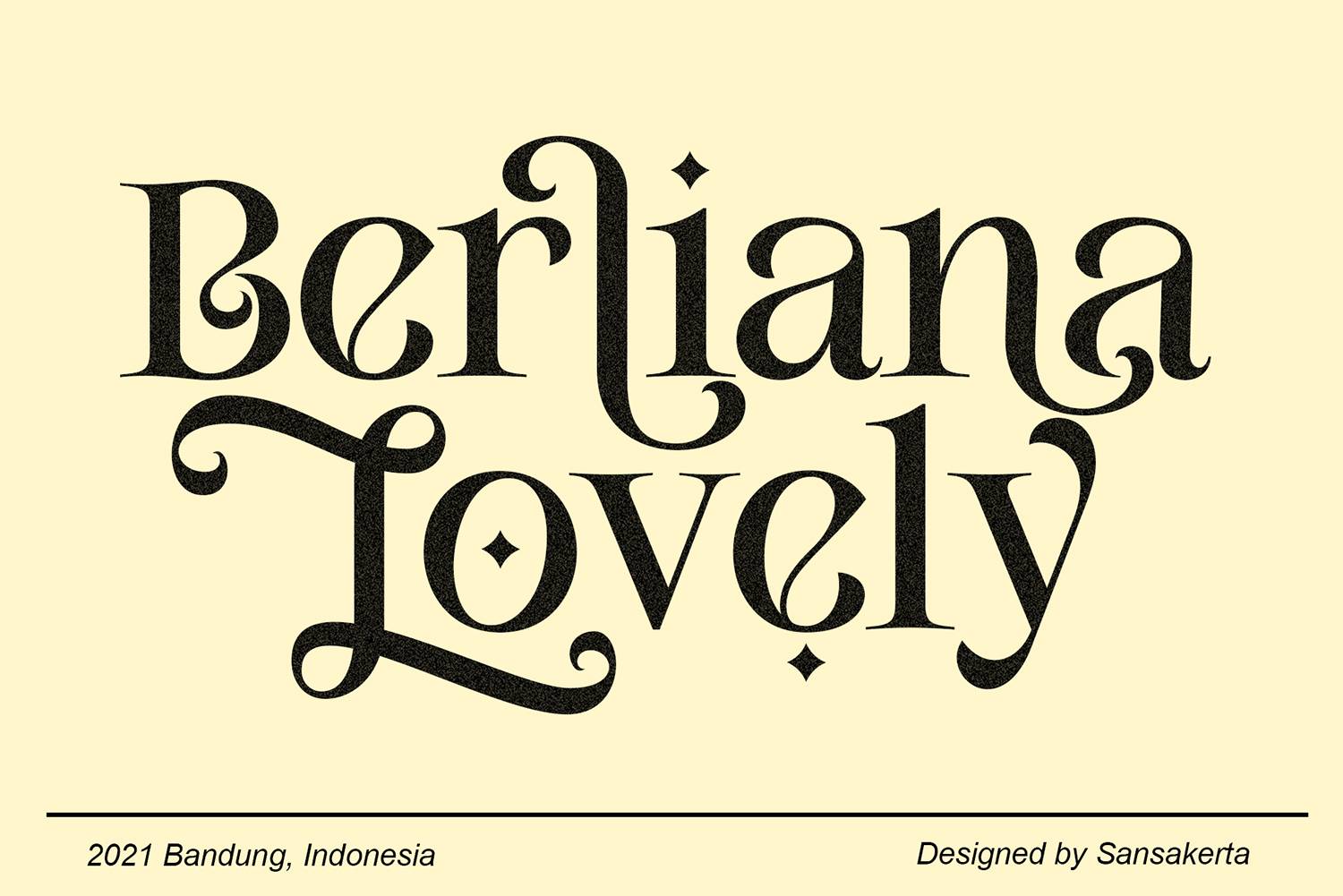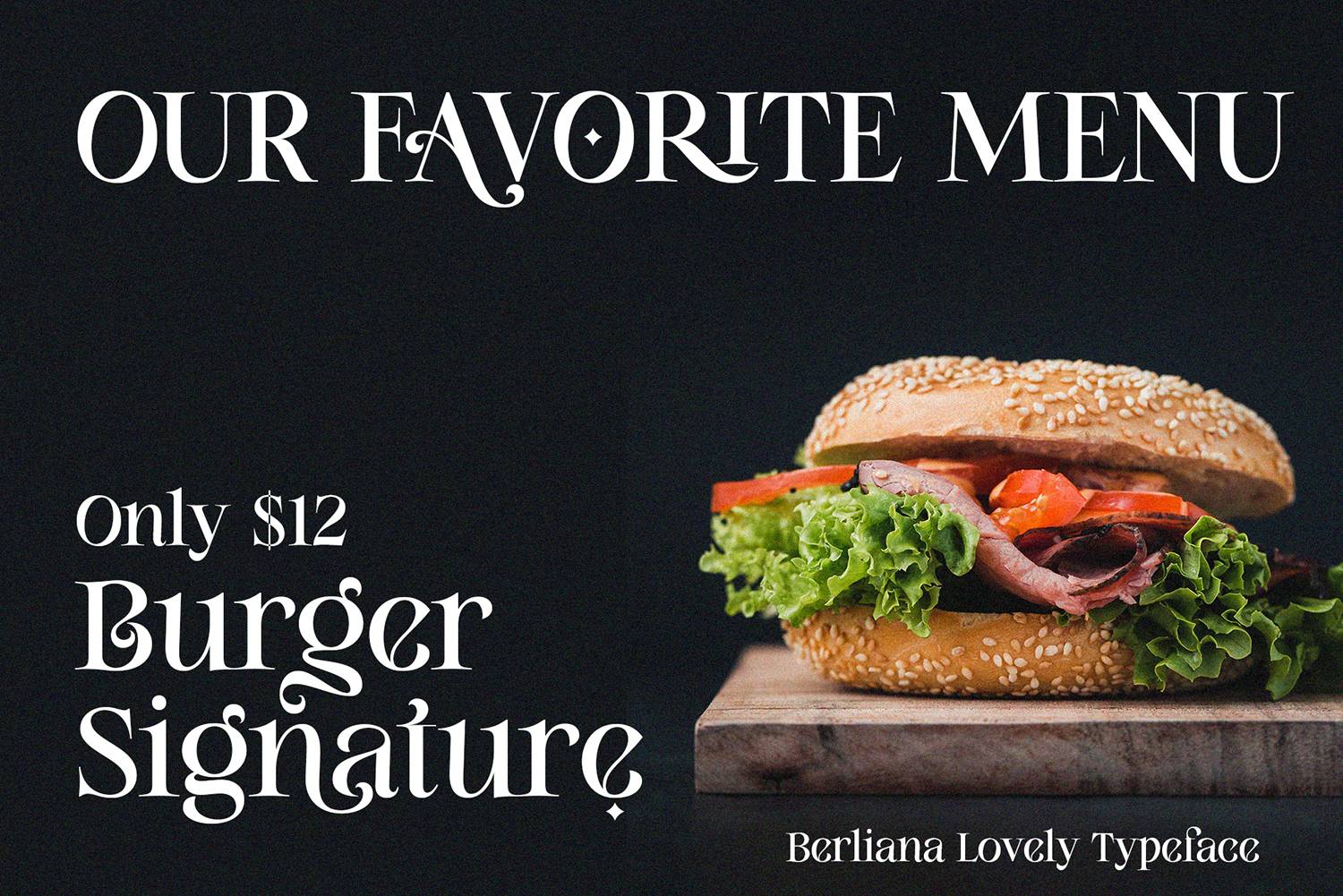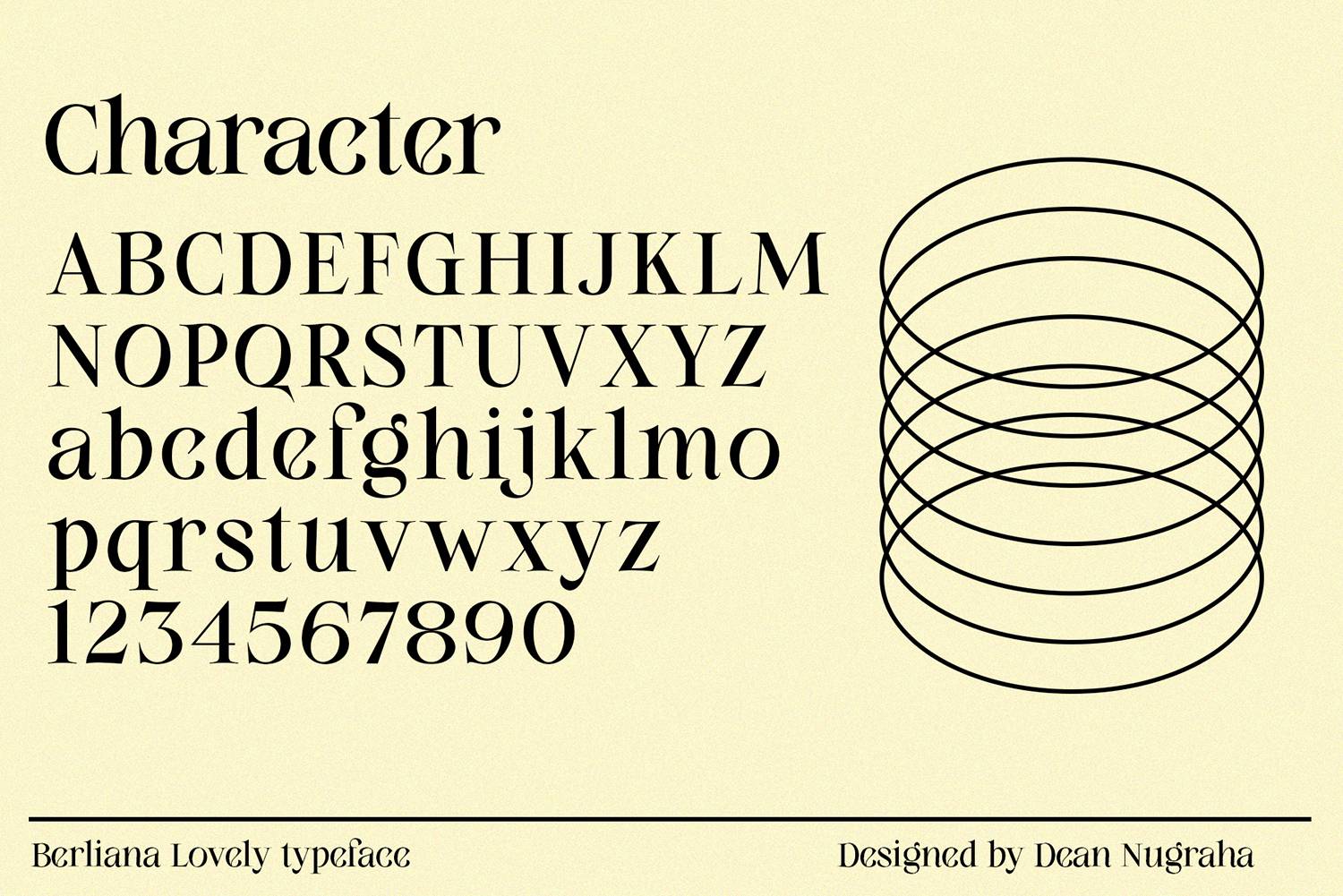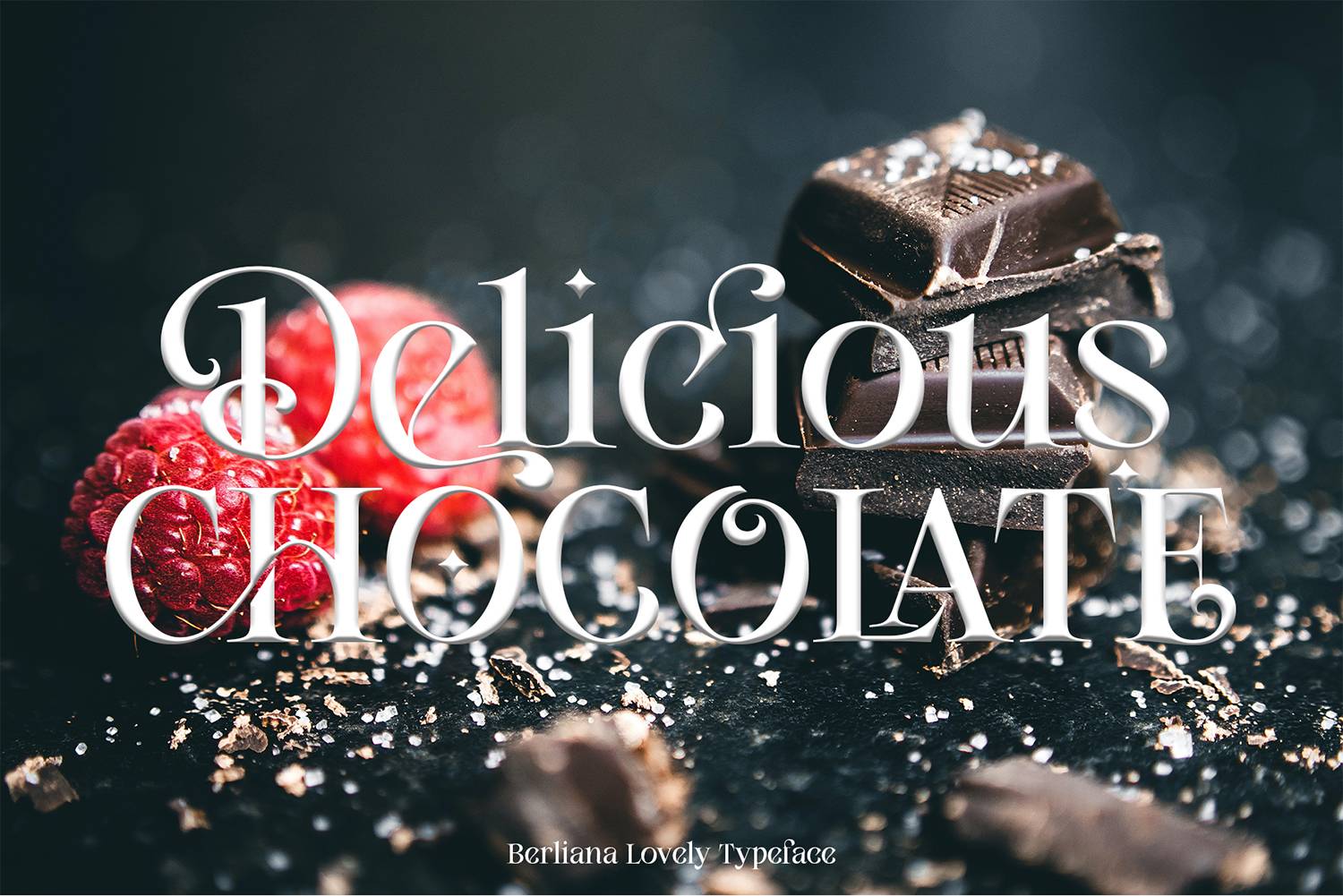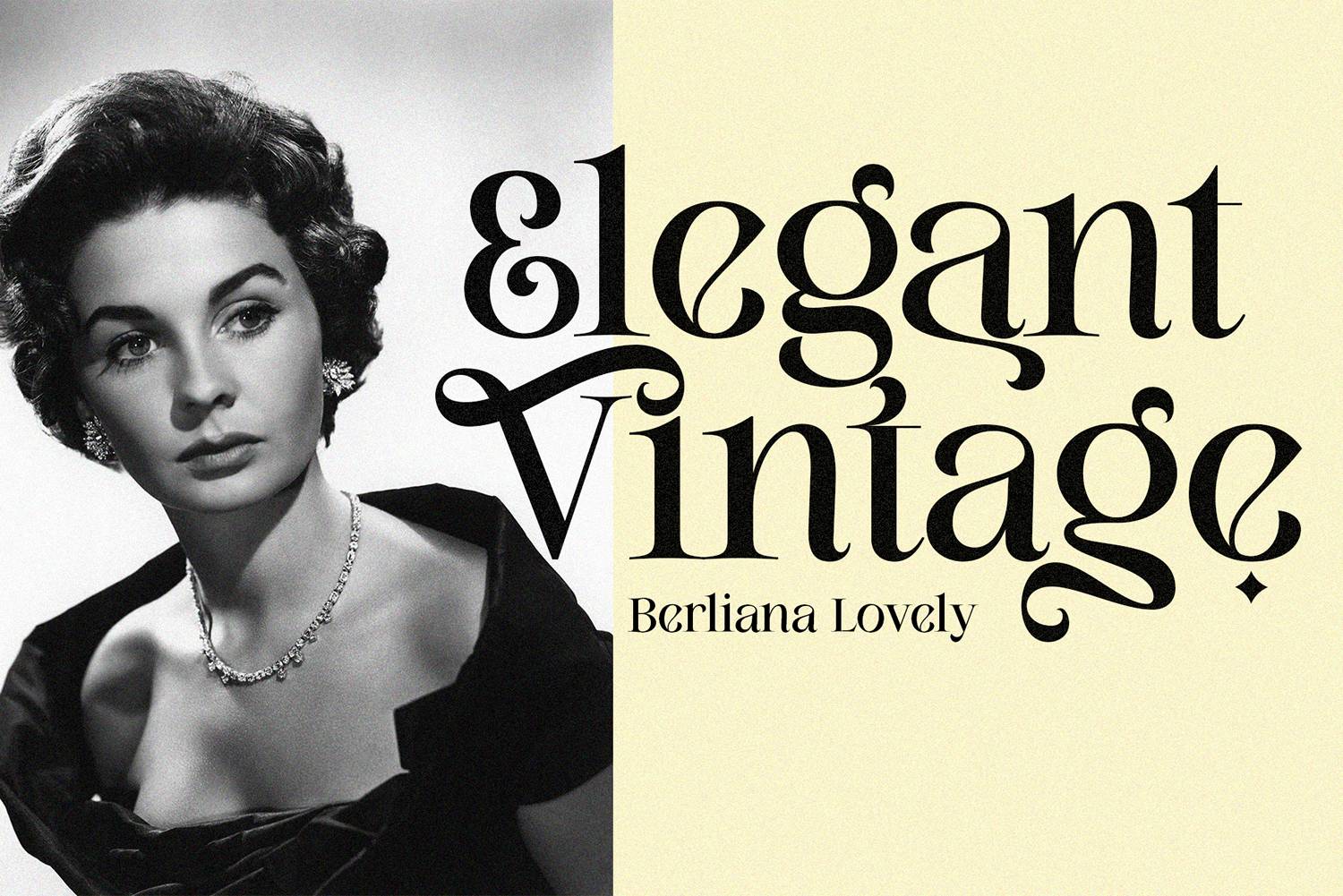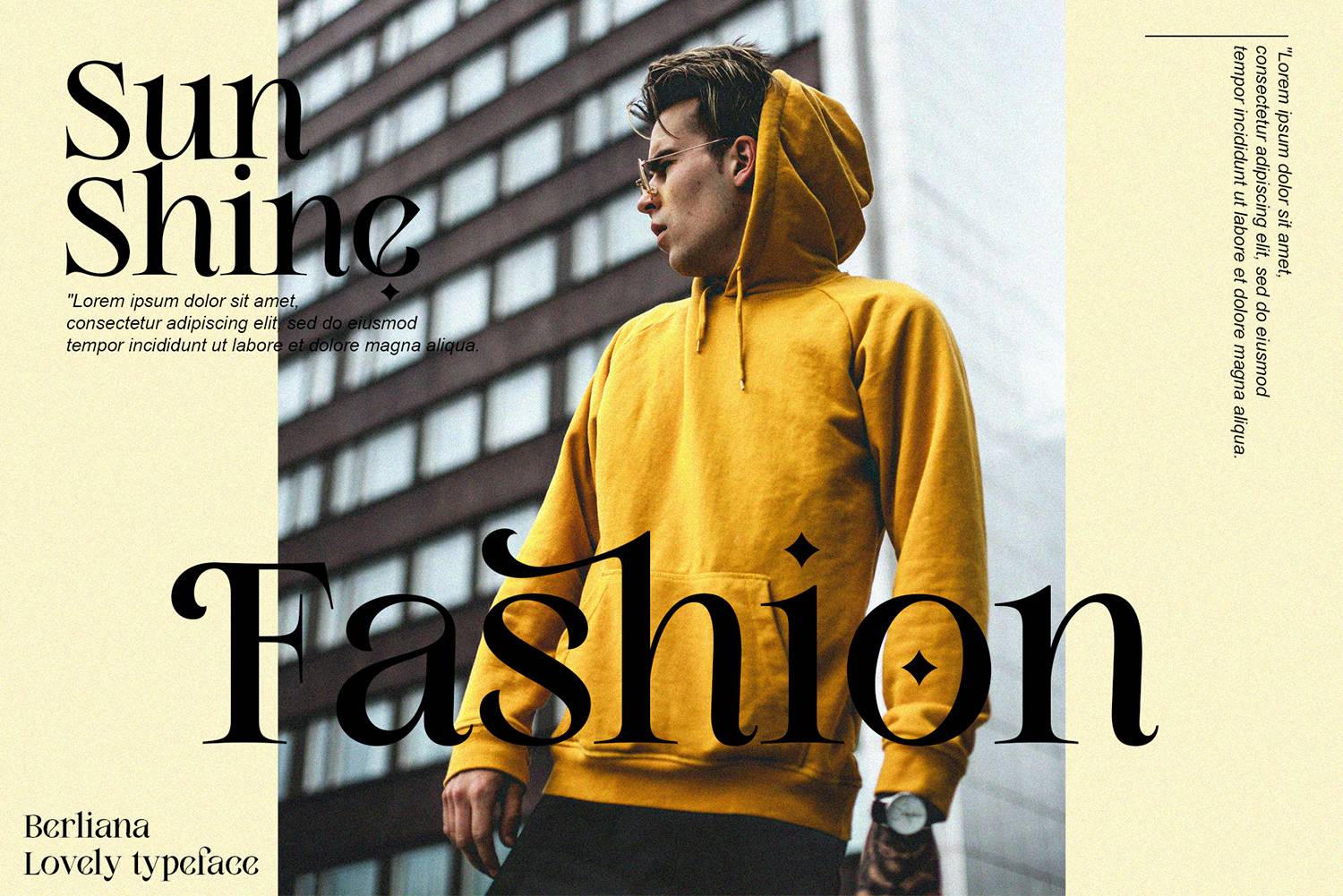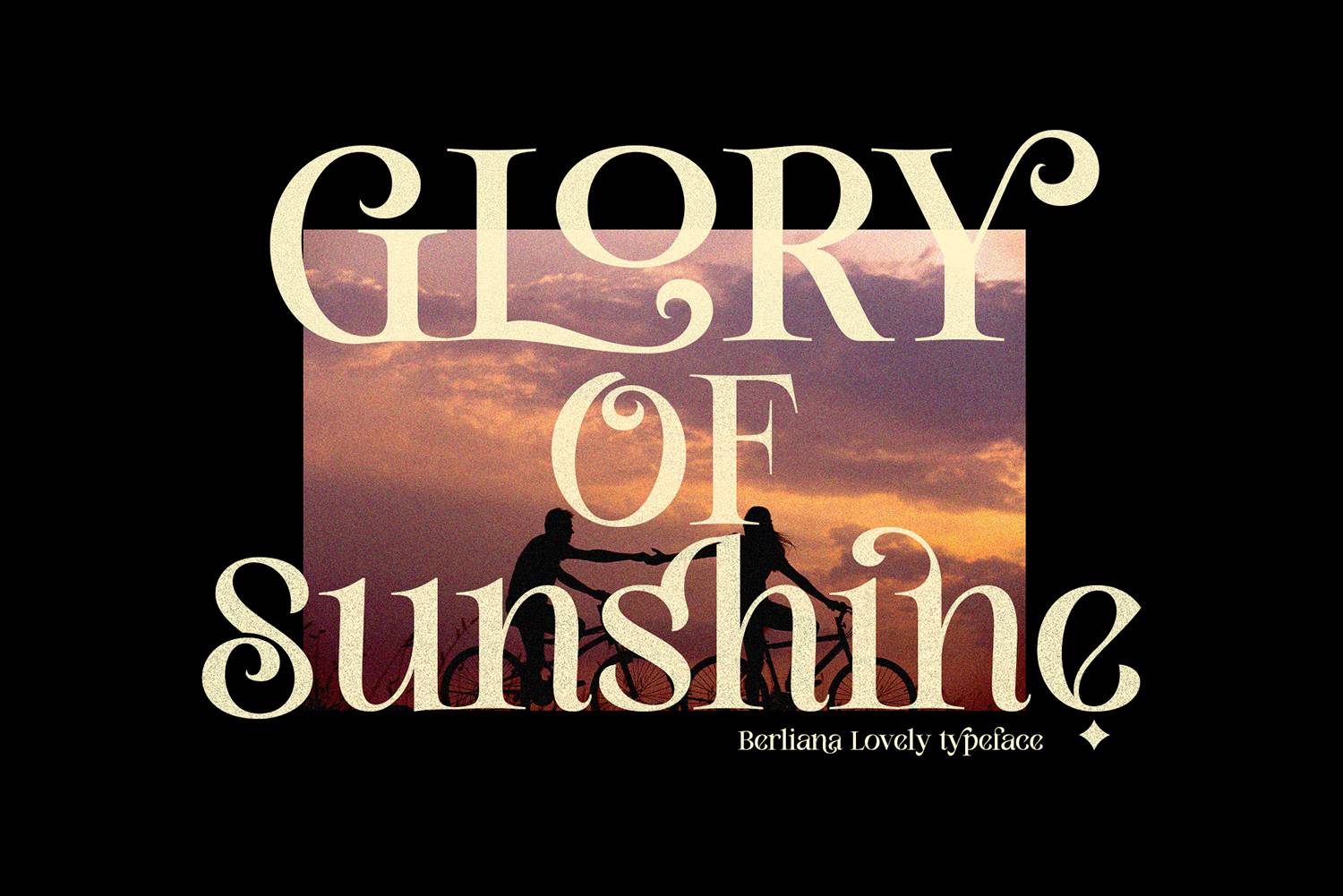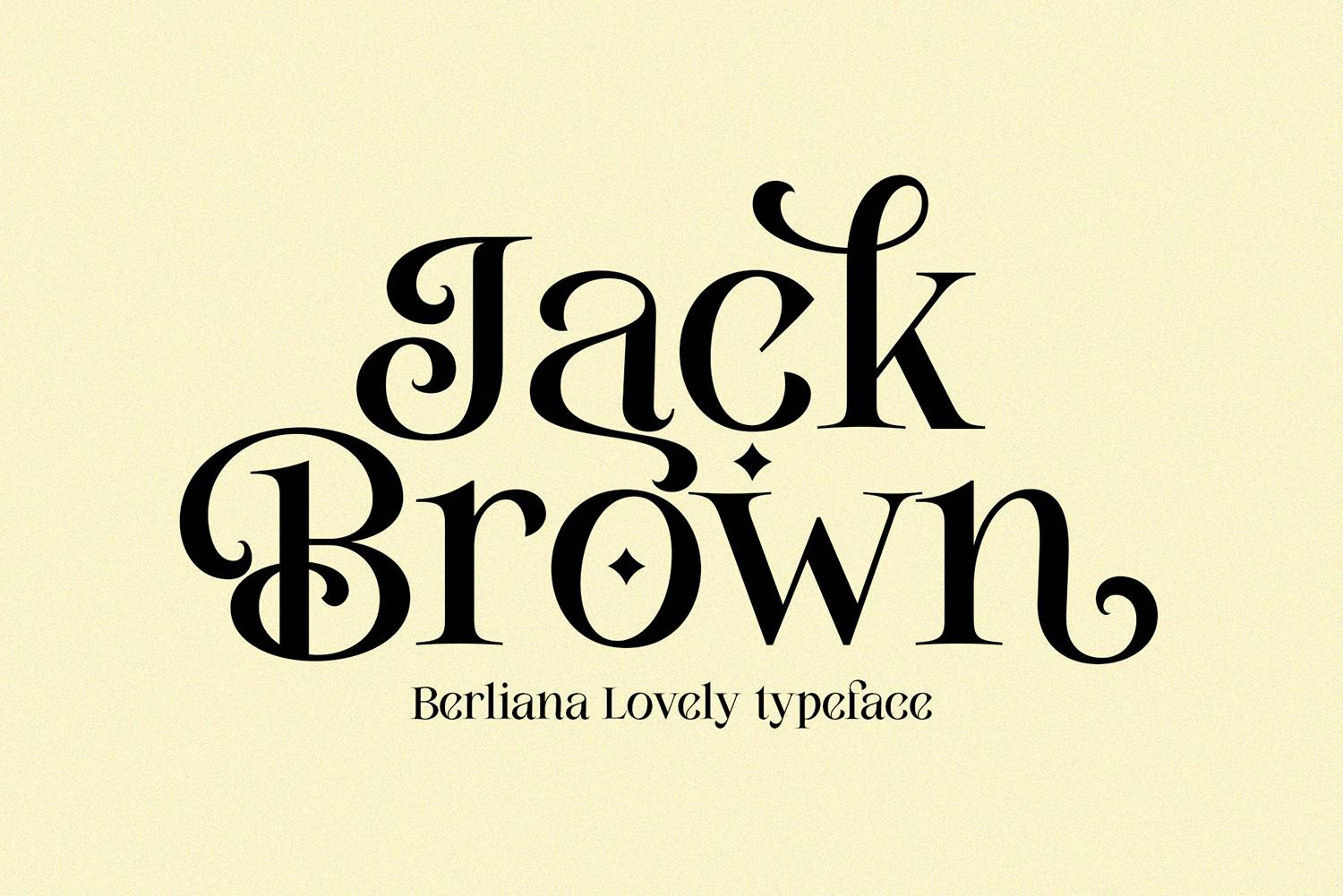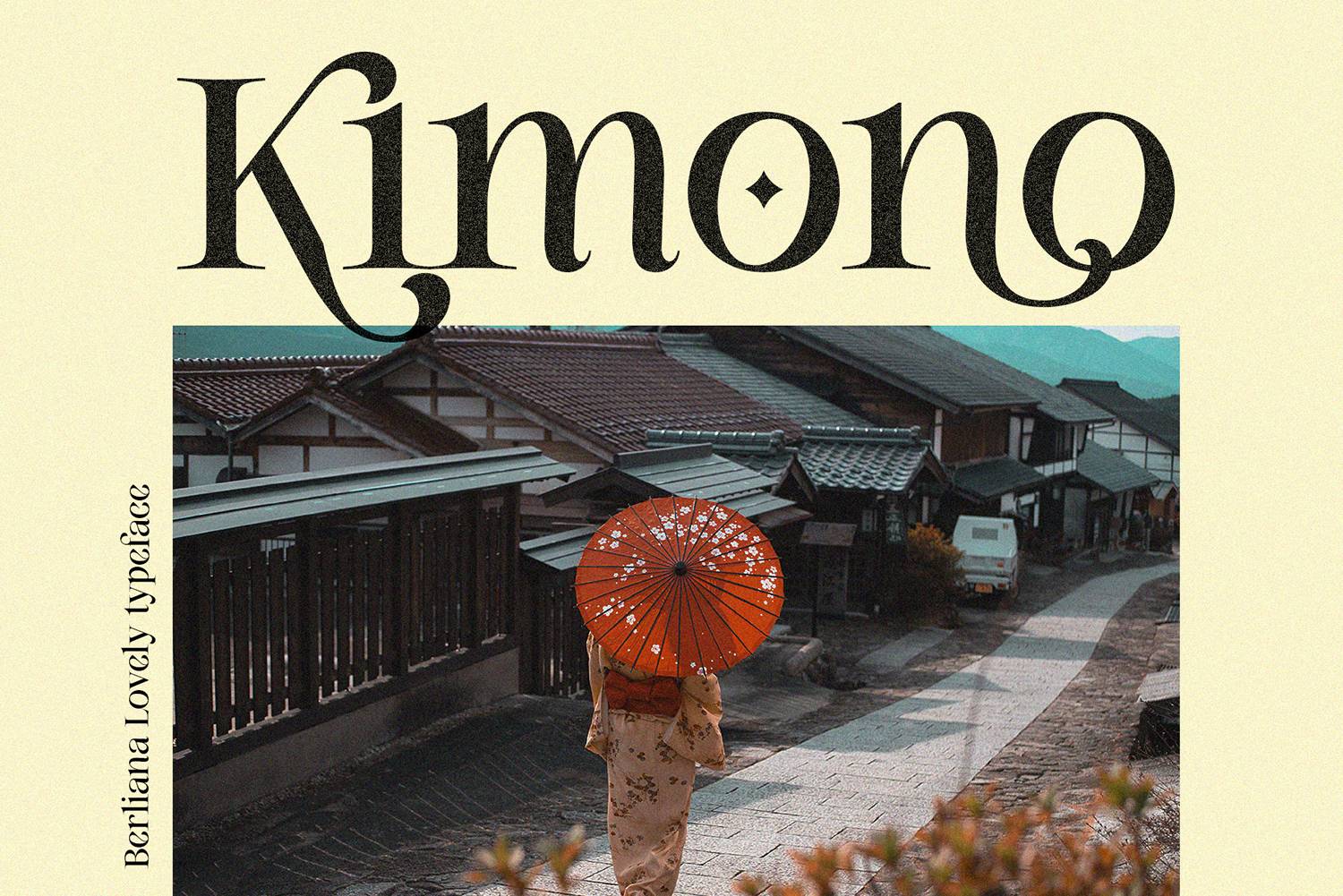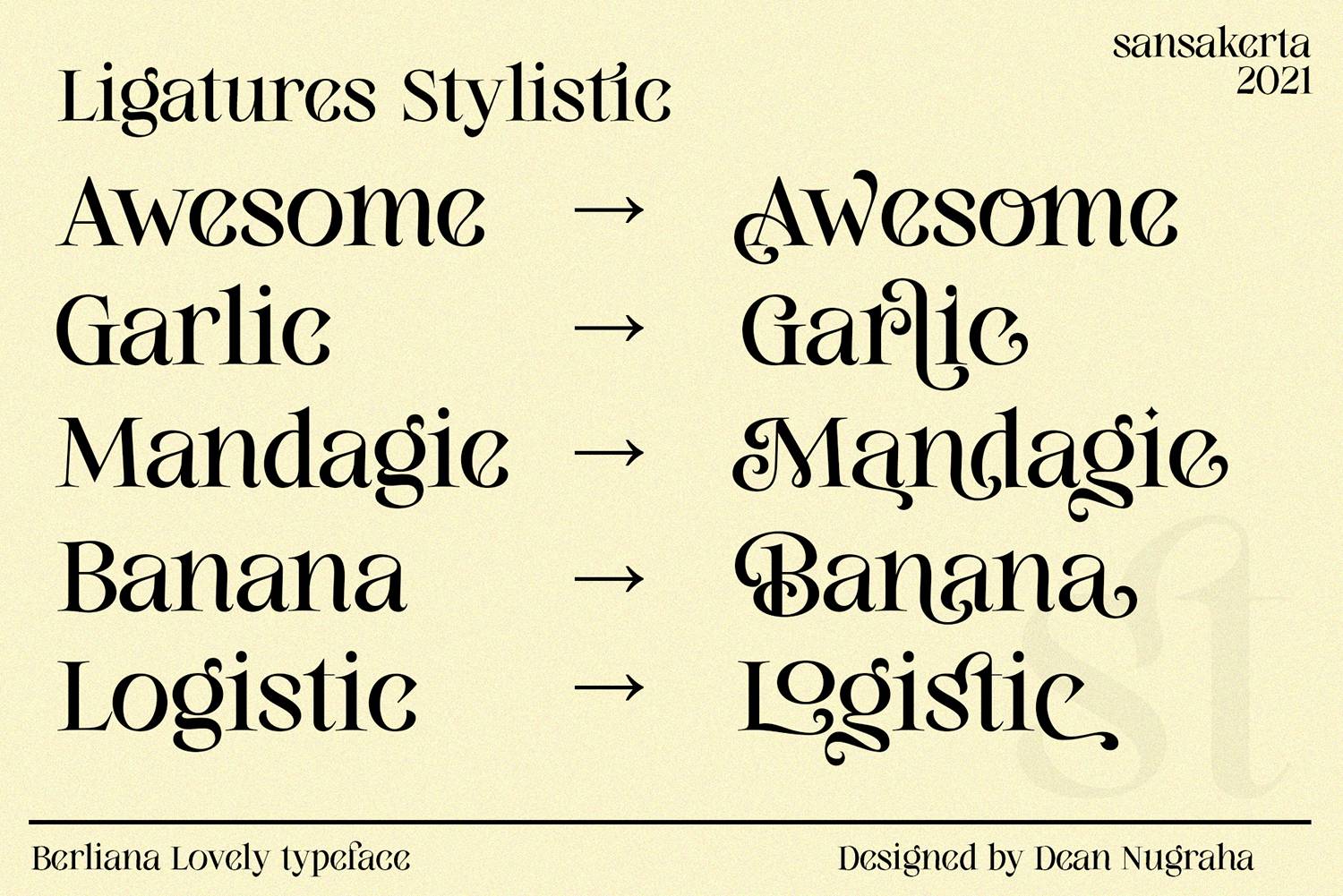
Berliana Lovely is an elegant serif font with a refined and slightly modern touch, characterized by its high contrast between thick and thin strokes and delicate, bracketed serifs. Its sophisticated letterforms, including distinctive single-story characters and unique terminal details, make it ideal for luxury branding, fashion, editorial headlines, and elegant packaging. This font combines readability with a graceful personality, perfect for designs that need a stylish yet classic flair.
Berliana Lovely Font
About Berliana Lovely Font